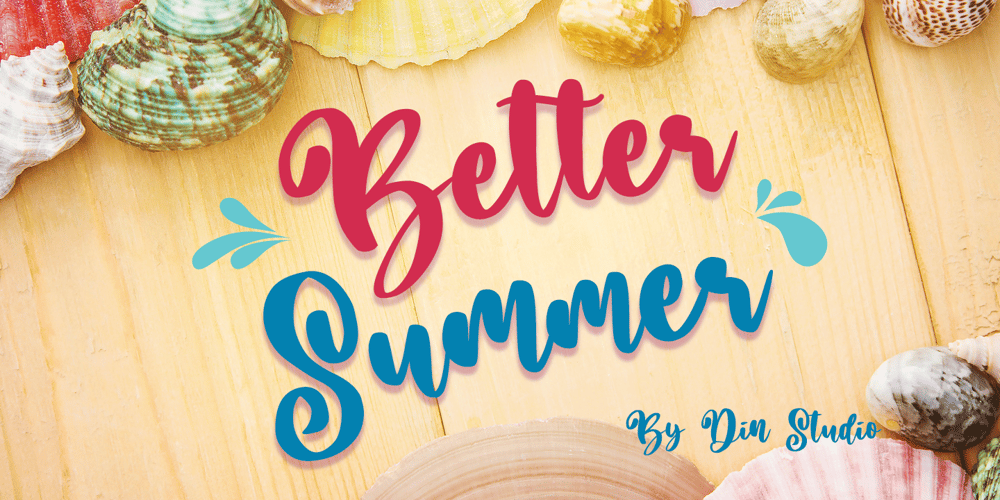
Better Summer Font Family was designed by Donis Miftahudin and published by Din Studio. Better Summer contains 1 styles and family package options. “Summer is Never Ending :D”Introducing a Better Summer Script.Made from a chic brush, it will make your design more beautiful.Features: Character Set A-z Numerals and Punctuation (OpenType Standard) Accents (Multilingual characters) PUA Encoded Beautiful ligatures I hope you can enjoy the font as you enjoy the summer 🙂